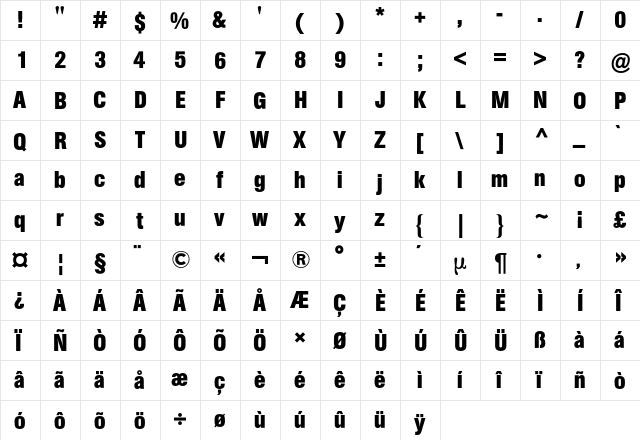
AG Buch Condensed BQ Regular
Design Context for AG Buch Condensed BQ Typeface
AG Buch Condensed BQ is a composed and adaptable typeface that performs quietly and consistently across a wide range of design contexts. Its narrow stance lets it pack a punch even in space-constrained designs.